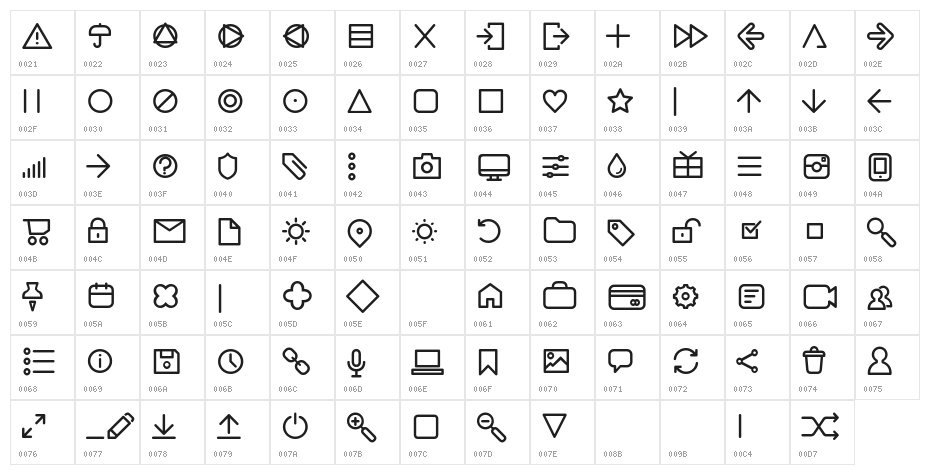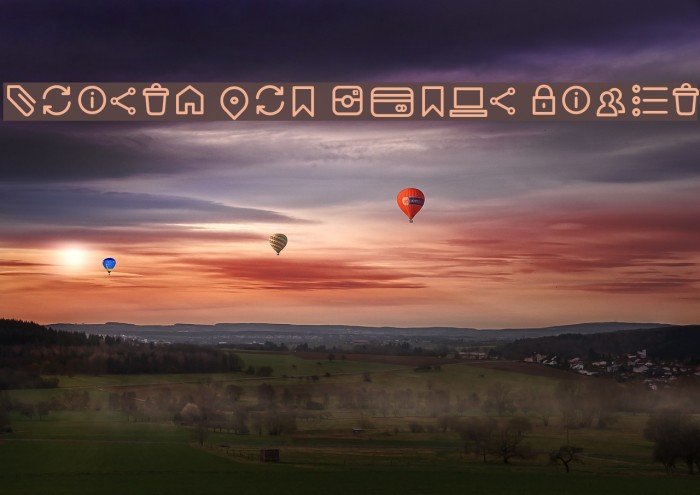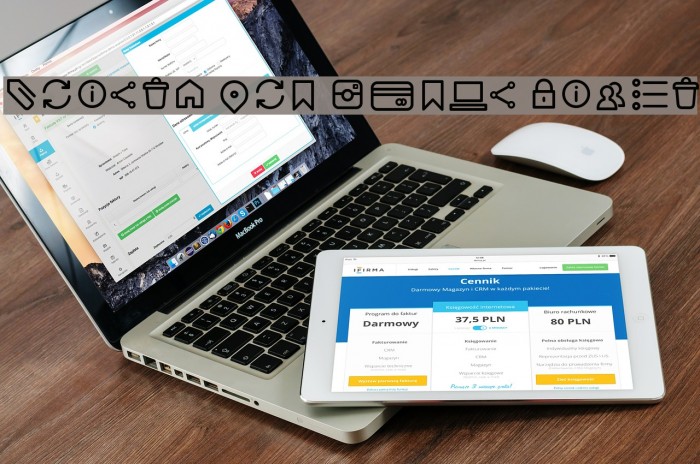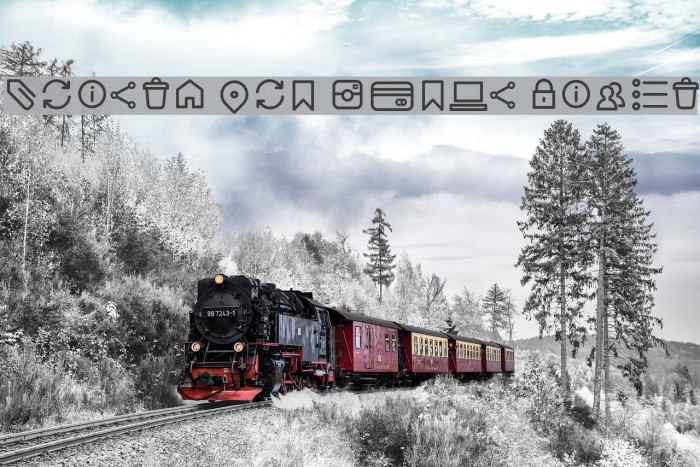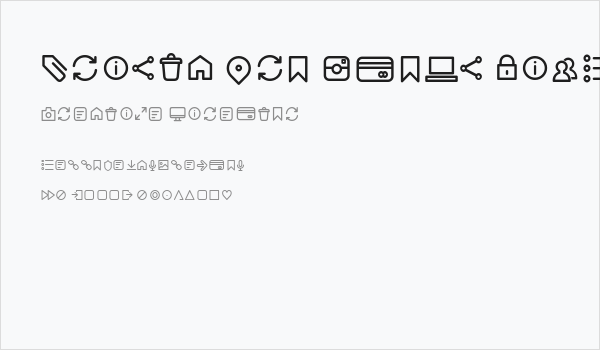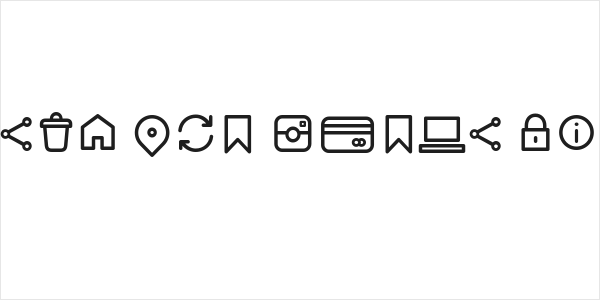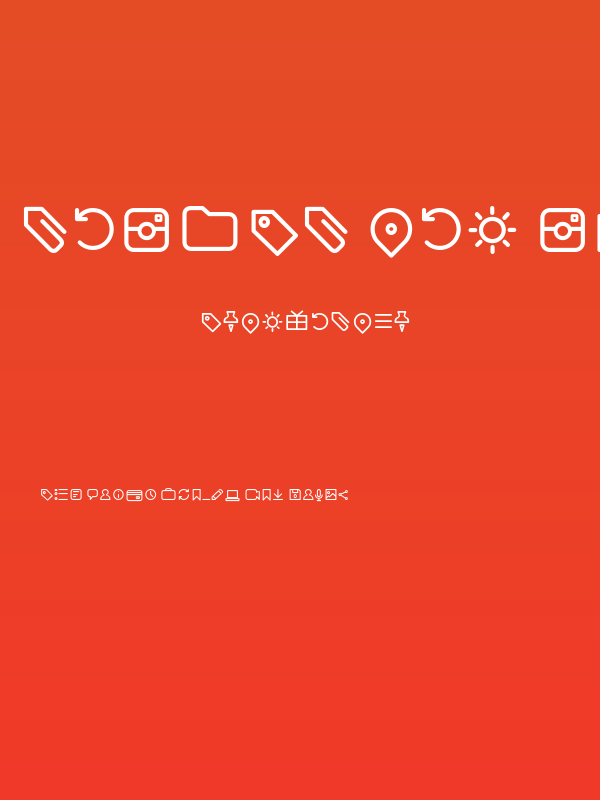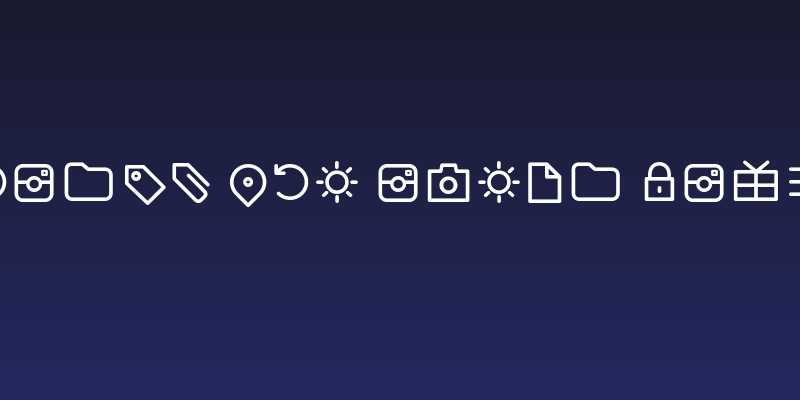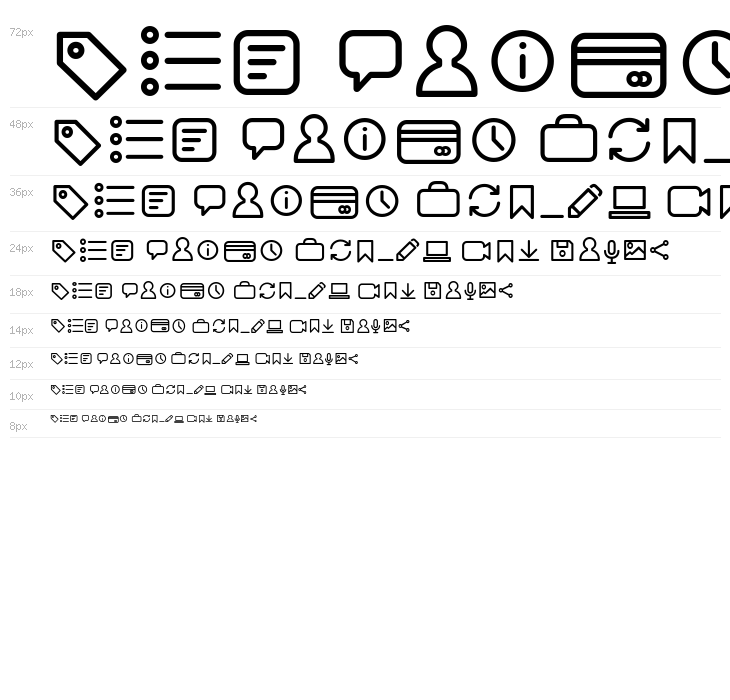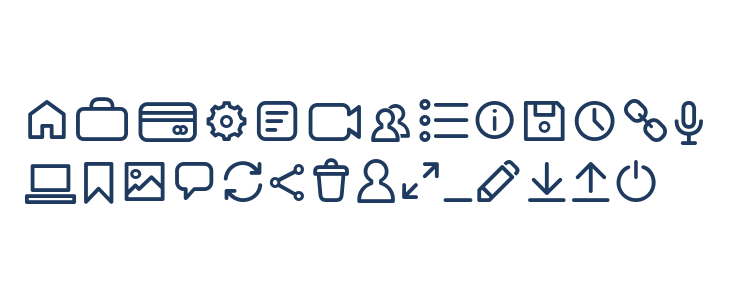
Arista Pro Icons Light Font
Arista Pro Icons Light Description
This is a collection of minimalist, line-based icons that feature a clean and modern aesthetic. Each icon is crafted with precision, using consistent line weights and rounded corners to create a cohesive look. The icons cover a wide range of common interface elements, such as settings, communication, navigation, and multimedia controls. The simplicity of the design makes them versatile for various applications, ensuring they remain legible and visually appealing at different sizes. The uniformity in style allows for seamless integration into digital interfaces, enhancing user experience without overwhelming the design.